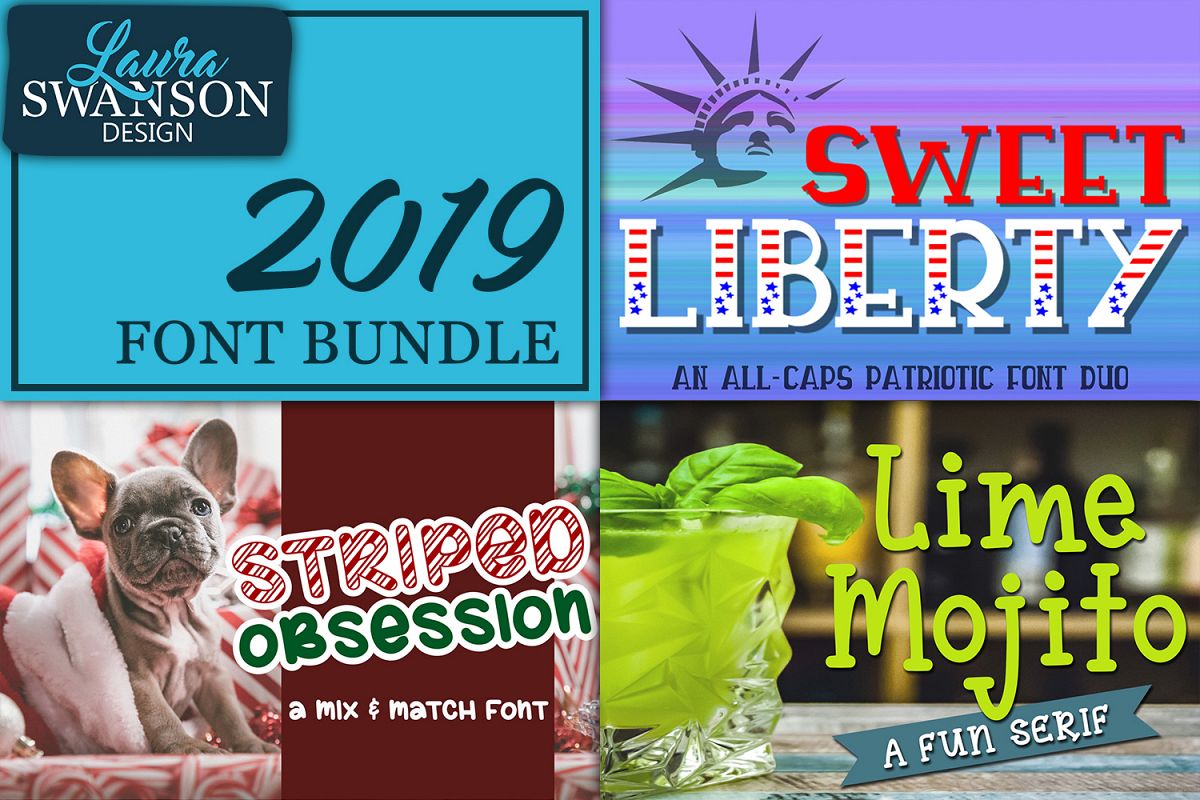
2019 Font Bundle
This 2019 Font Bundle is filled with 3 fun fonts:
Sweet Liberty is a patriotic inspired font duo,
Striped Obsession is a fesitve mix & match font,
and Lime Mojito is a fun serif font!